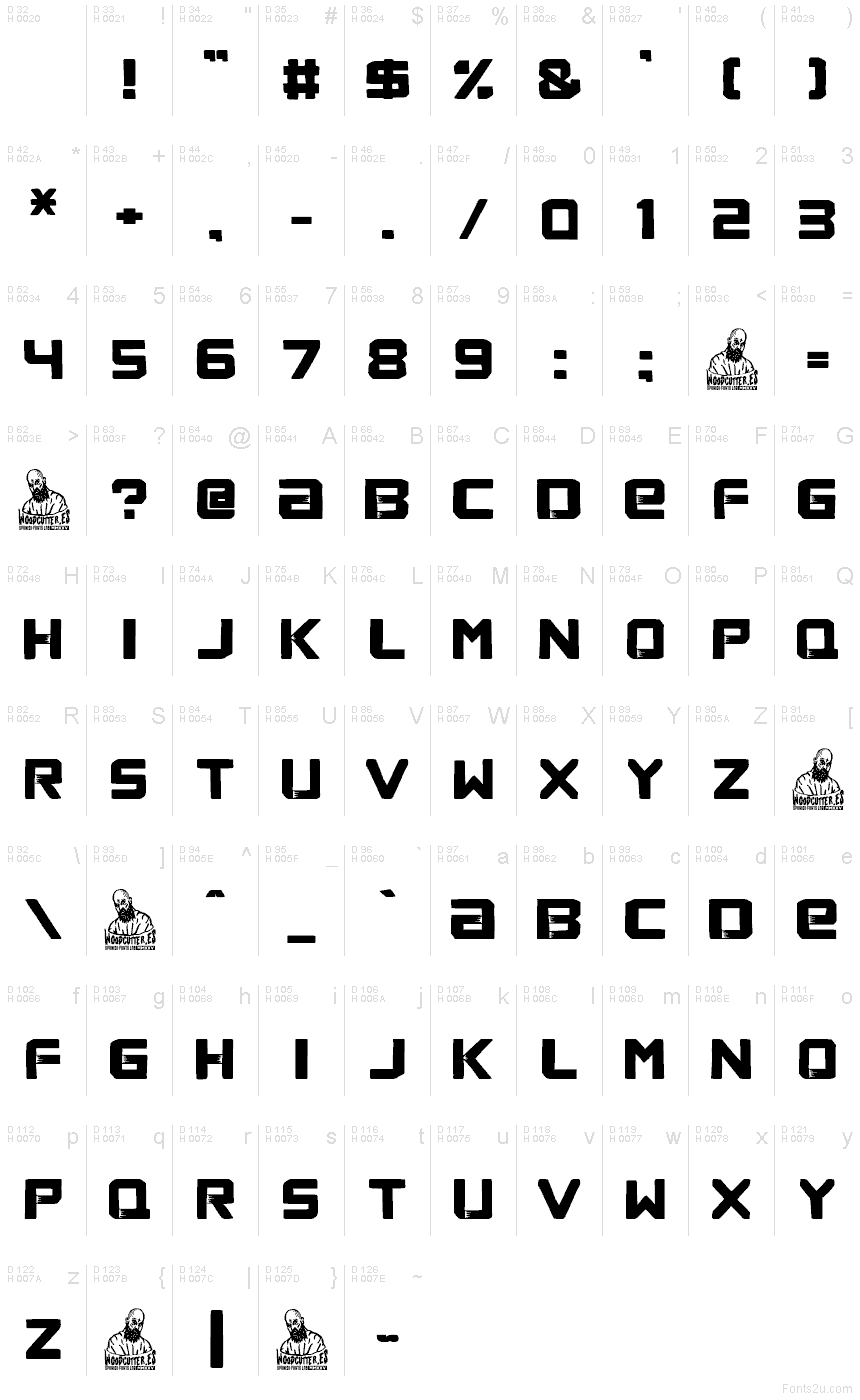
Ultra Force Big
Ultra Force Big font is an expanded bold display typeface by Woodcutter that impresses with a truly impactful visual presence. This free font is aggressive, highly geometric, futuristic, and industrial. With sharp edges, a thin ending stroke, and thick brushstrokes in between design combination builds strong clean body structures. Any communication done with this typeface will have a powerful striking impression.